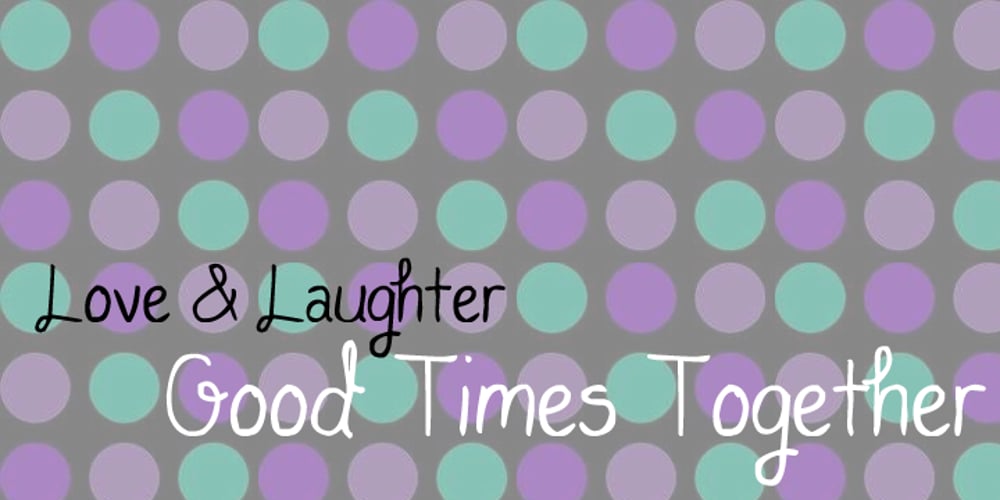
Rayna Font Family was designed by Melinda Jeffs and published by melifonts. Rayna contains 1 styles and family package options. Rayna is a simply beautiful handwritten font that is suitable for scrapbooking, notes to friends, and stylish logos. It is both elegant and versatile, including both Latin and Cyrillic alphabets with support for most European languages. This delicate typeface’s swooping curls and sweet lines are the perfect addition to your handwritten font collection!